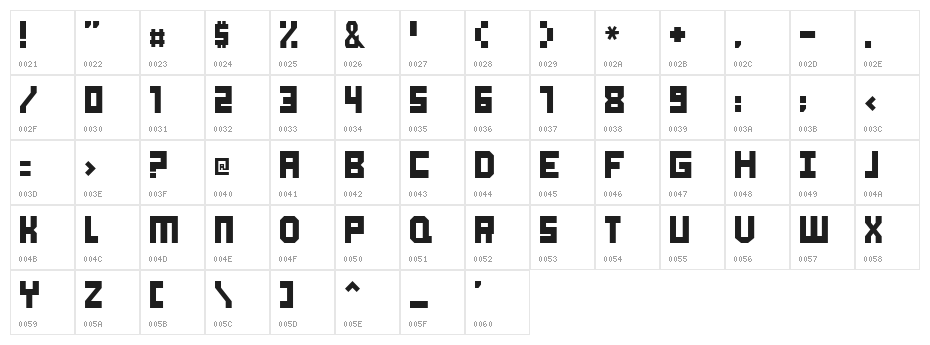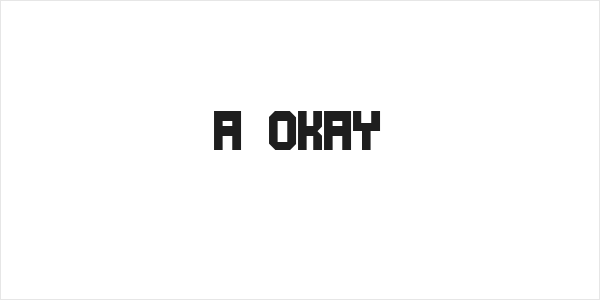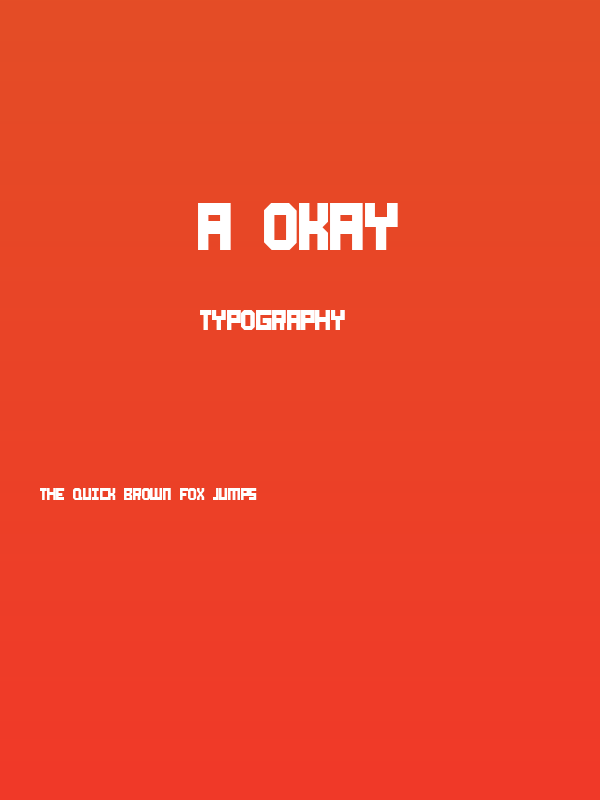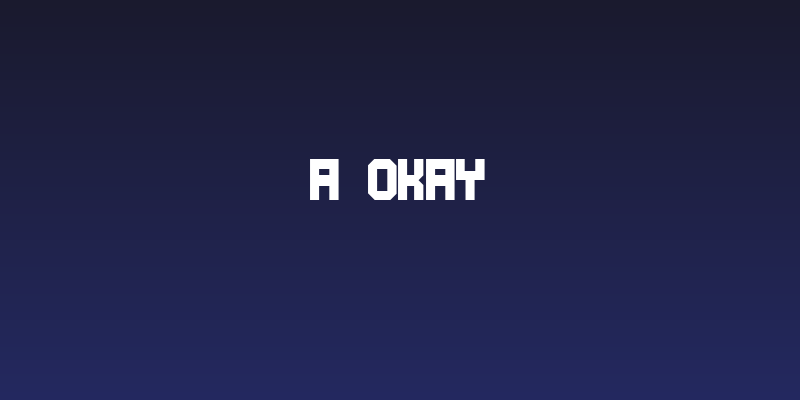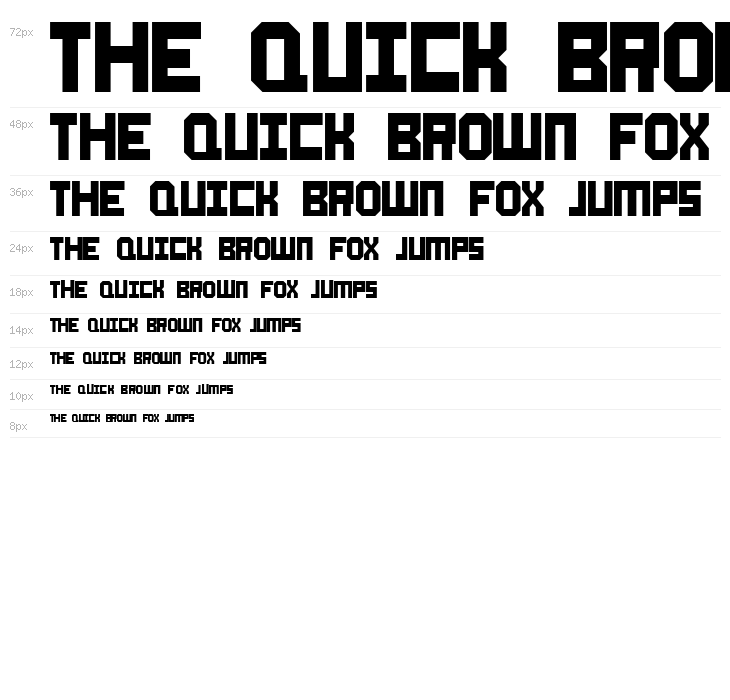
A Okay Font
A Okay Description
This font features a bold, geometric design with strong, angular lines and a blocky appearance. Each character is constructed with a consistent thickness, giving it a uniform and cohesive look. The uppercase letters are particularly striking, with sharp edges and a modern aesthetic. The numerals and special characters maintain this bold style, ensuring readability and impact. The overall design is reminiscent of digital or pixelated fonts, making it suitable for projects that require a futuristic or tech-inspired feel. The font's solid structure and high contrast make it ideal for headlines or display purposes where attention is key.